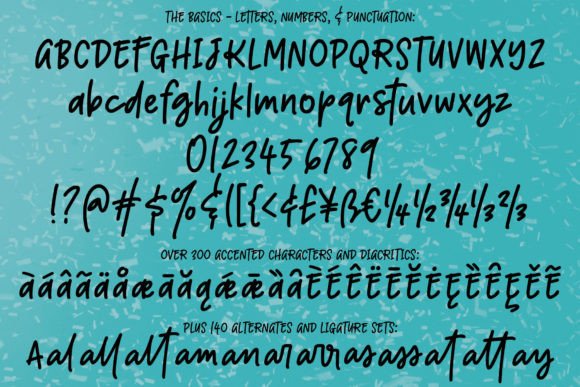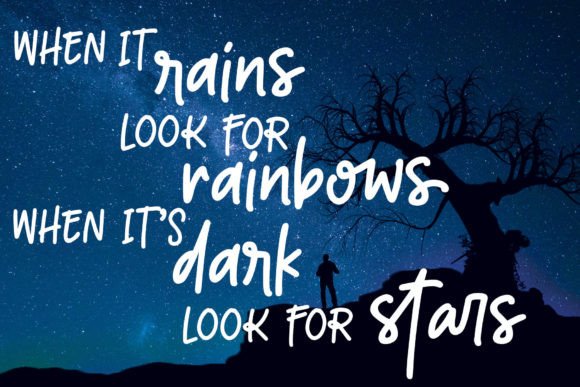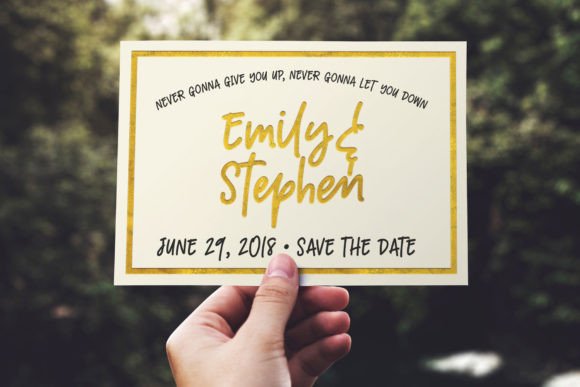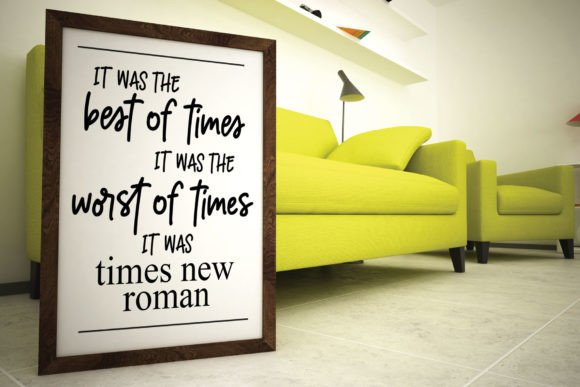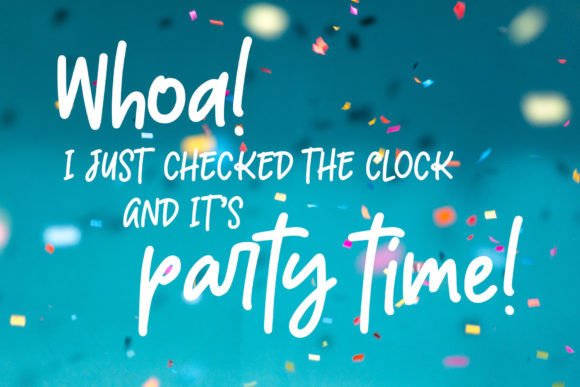
Introducing Boisterous Font: A Handwritten Delight with a Twist
Have you ever found yourself lost in the creative process of crafting a font, starting with a simple design and then adding more and more features until it evolves into something much more complex? That’s exactly how Boisterous Font came to be. What began as a straightforward handwriting-style font with a single stroke width quickly grew into a robust and playful typeface, complete with over 100 multi-letter ligatures and a host of single-letter alternates.
The Birth of Boisterous
Boisterous started out with a humble goal: to create a nice, casual handwriting font that could be used for a variety of design projects, from branding to packaging. The initial idea was simple enough—a clean, single-stroke width that would give text a friendly, approachable feel. However, as the design progressed, the possibilities began to unfold. The addition of ligatures—those charming combinations of letters that flow together in a single unit—added a new layer of character and whimsy to the font.
Before long, the number of ligatures grew to over 140, encompassing not just the standard combinations but also a variety of unique pairings that add a touch of personality to any text. Whether you’re looking to emphasize a particular word or simply want to add some flair to your design, Boisterous has you covered.
Language Support and Character Set
But Boisterous is more than just a pretty face. With over 300 extended Latin characters, this font offers extensive language support, making it suitable for a wide range of languages and dialects. Whether you’re designing for English, Spanish, French, German, or many other languages, Boisterous has the characters you need to get the job done.
In addition to its extensive character set, Boisterous also includes a dozen single-letter alternates, providing even more flexibility and variety for your designs. These alternates can be used to create visual interest, add emphasis, or simply to give your text a more customized look.
So, what can you expect from Boisterous Font? Here’s a rundown of the features and goodies included:
- The complete A-Z, a-z, 0-9, and a wide range of punctuation marks
- Over 300 extended Latin characters for comprehensive language support
- 140 alternates and ligatures in the PUA (Private Use Area) for added variety and customization
Boisterous Font is a versatile typeface that’s perfect for a variety of design applications. Its casual, handwritten style makes it ideal for:
- Branding and packaging: Add a personal touch to your product labels, business cards, and marketing materials
- Digital design: Use Boisterous in your website designs, social media graphics, and email newsletters
- Crafting and DIY projects: Add a touch of personality to your handmade projects, from scrapbooking to crafting
Cutting-Ready and Smooth
One of the unique features of Boisterous is its smooth, cutting-ready design. This makes it perfect for crafters and designers who need to work with cutting machines or precision cutting tools. The font’s smooth lines and curves ensure that your designs will look great, even when cut out.
Boisterous Font is a delightful handwritten typeface that’s packed with features and personality. With its extensive character set, ligatures, and alternates, it’s the perfect choice for designers and crafters looking to add a touch of whimsy and style to their projects. Whether you’re working on a branding project, crafting a handmade gift, or simply looking for a fun and versatile font, Boisterous is sure to please.